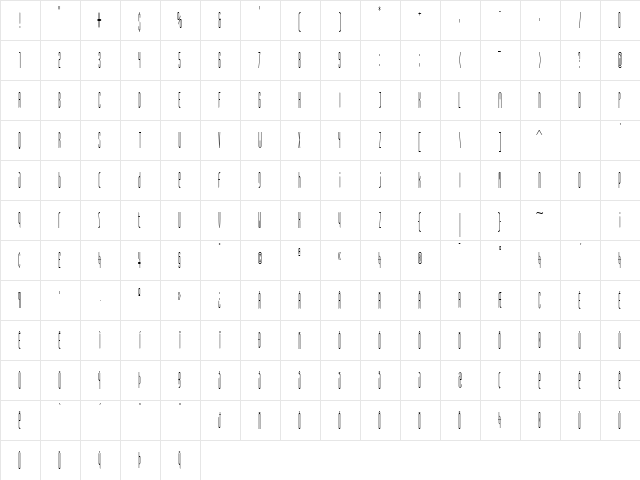
Typeface FourOne Regular
Design Context for Typeface FourOne Typeface
Typeface FourOne takes a measured approach to typography — its balanced proportions and neutral character make it a reliable workhorse for both digital and print work.